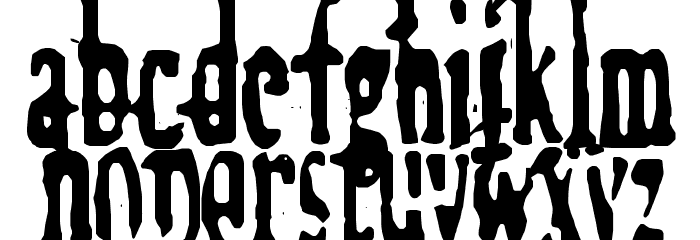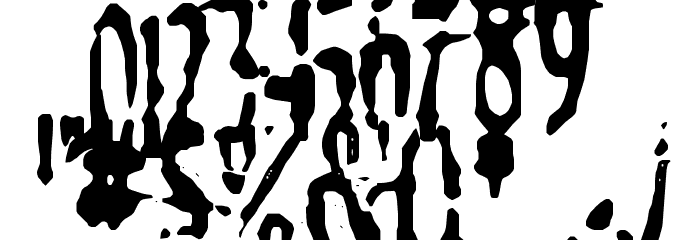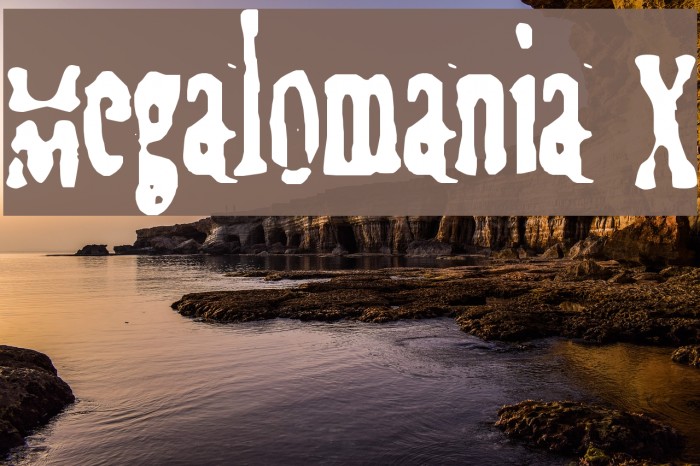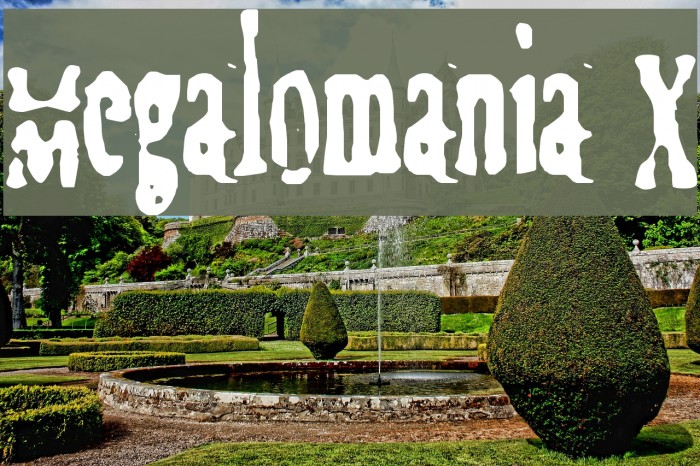
Megalomania X Font
This font exhibits a highly decorative and distorted style, characterized by its irregular and bold letterforms. The uppercase and lowercase letters are uniquely crafted with exaggerated curves and sharp edges, creating a chaotic yet artistic appearance. The numbers and special characters follow the same design ethos, contributing to the overall eccentric and expressive nature of the font. The strokes are thick and uneven, adding to the dramatic and intense visual impact. This font is designed to stand out and make a statement, ideal for creative projects that require a bold and unconventional aesthetic.
A bold, decorative font with distorted and artistic letterforms.
- Proposed Projects: Ideal for album covers, posters, or any project needing a bold, artistic touch.